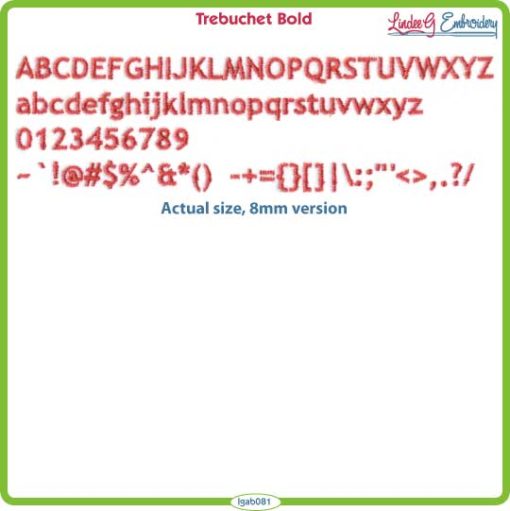
Trebuchet Bold is an all-purpose sans serif machine embroidery font that includes A-Z, a-z, 0-9 and the following punctuation: !@#$%&*()-+=|:;”‘<>,.?/ (86 total characters). 3 sizes.